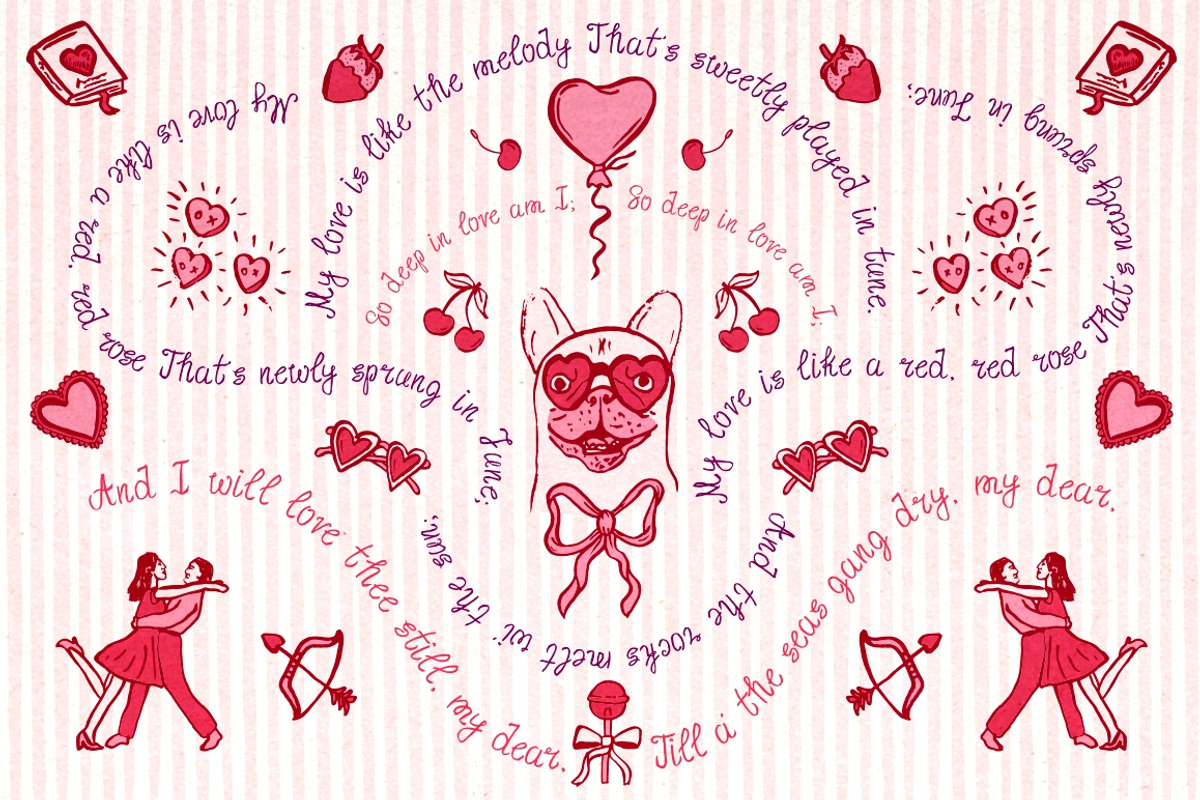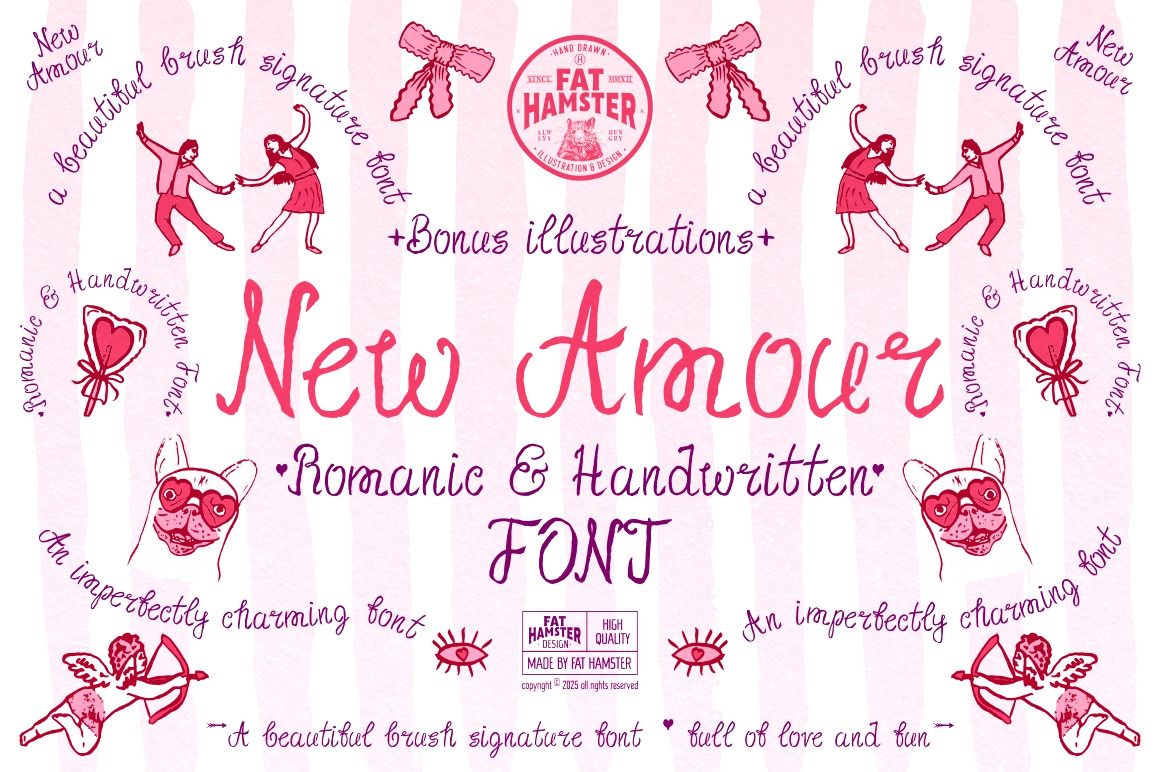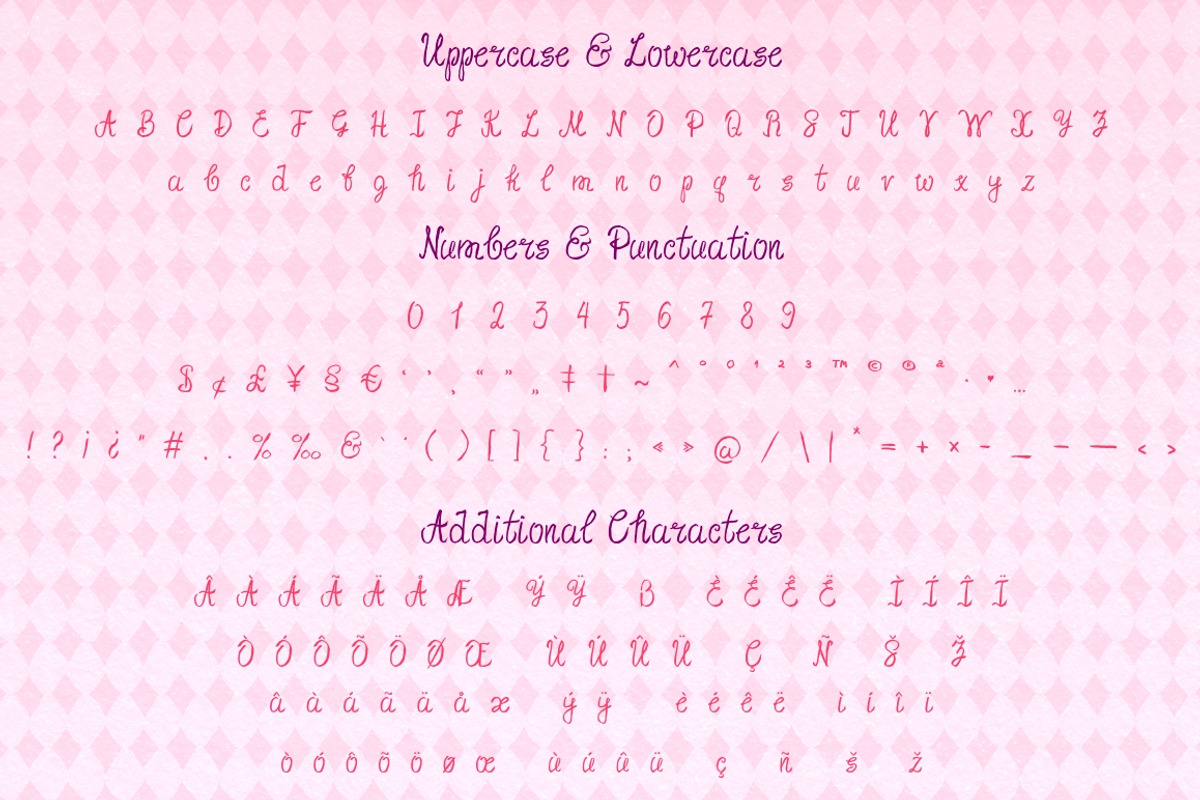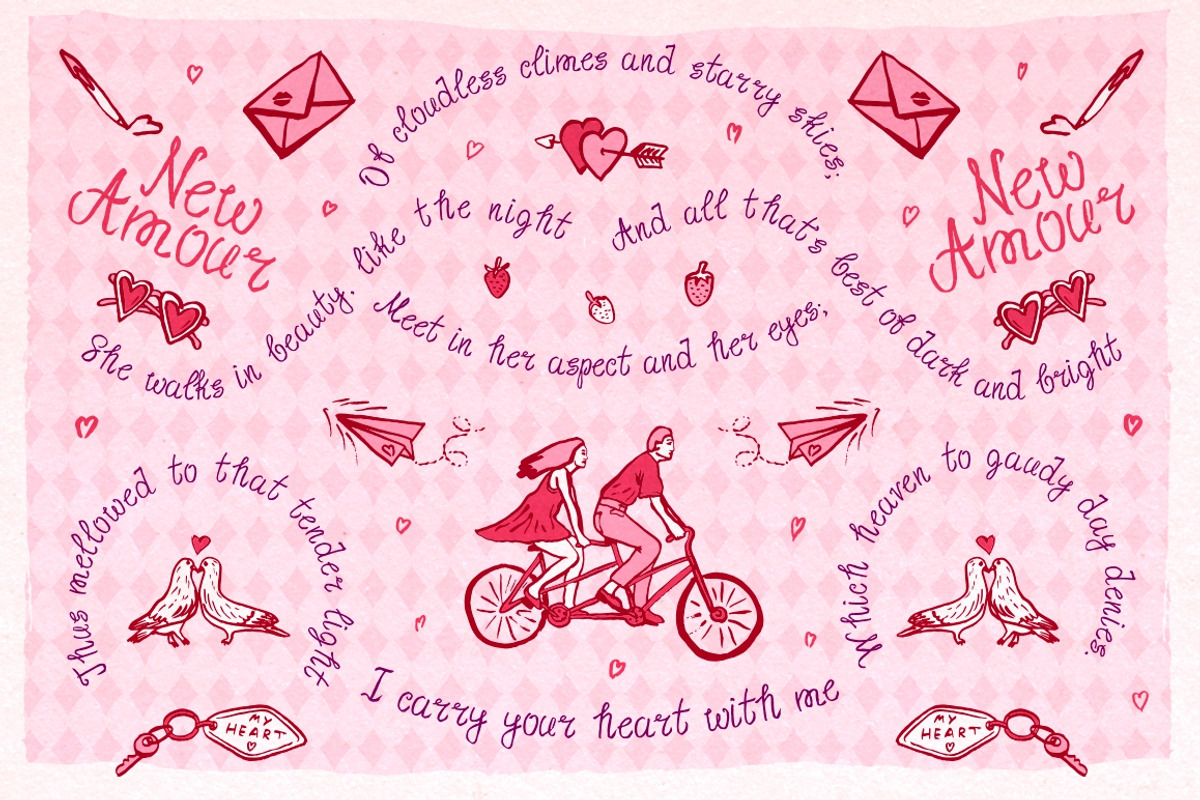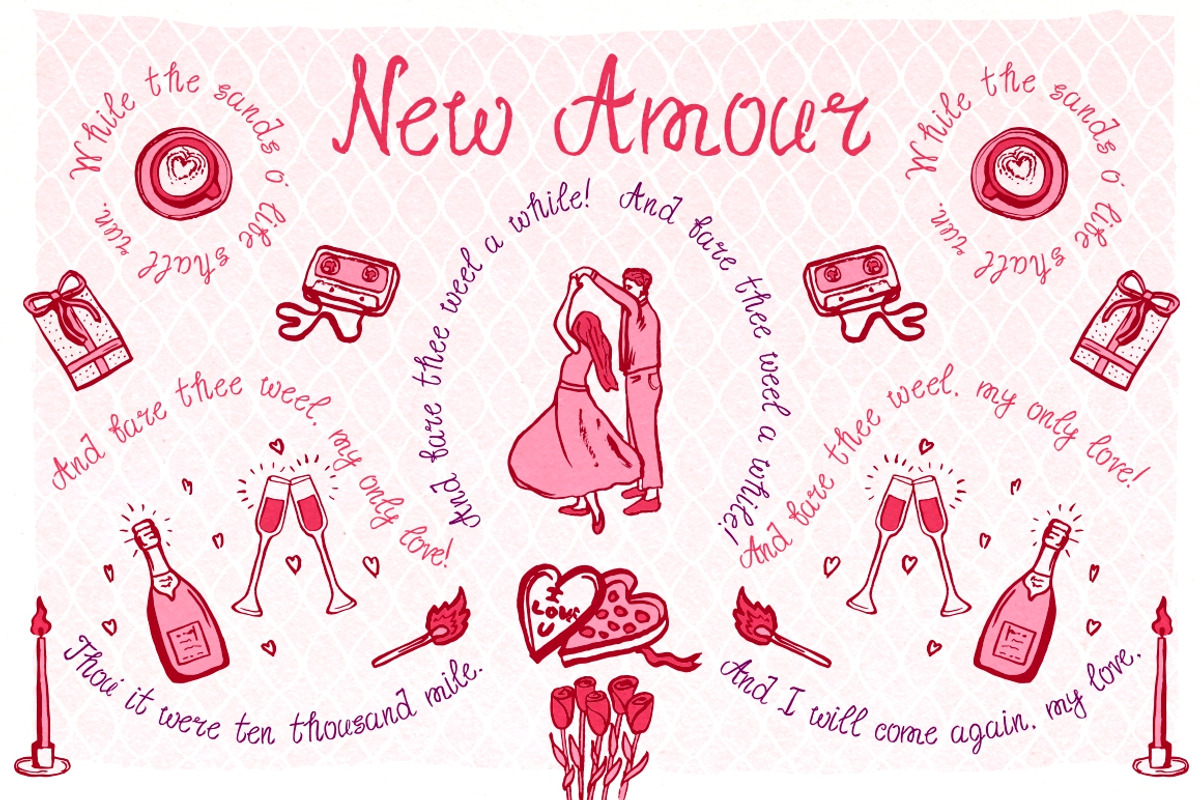
New Amour romantic handwritten font
New Amour — Romantic Handwritten Brush Font
New Amour is a beautiful handwritten brush font with romantic, flowing strokes that evoke warmth, charm, and authentic handmade character. Designed to bring a heartfelt touch to your projects, this font is perfect for love-inspired designs, elegant branding, and creative stationery. Whether you’re crafting wedding invitations, greeting cards, social media quotes, logos, or heartfelt brand identity, New Amour adds emotional depth and artistic flair to every word. Bring heartfelt charm to your creative projects with New Amour — Romantic Handwritten Brush Font and make every design feel personal and expressive!
- Handcrafted brush script with lively, natural lines
- Romantic, whimsical curves and smooth flow
- Works beautifully at large and headline sizes